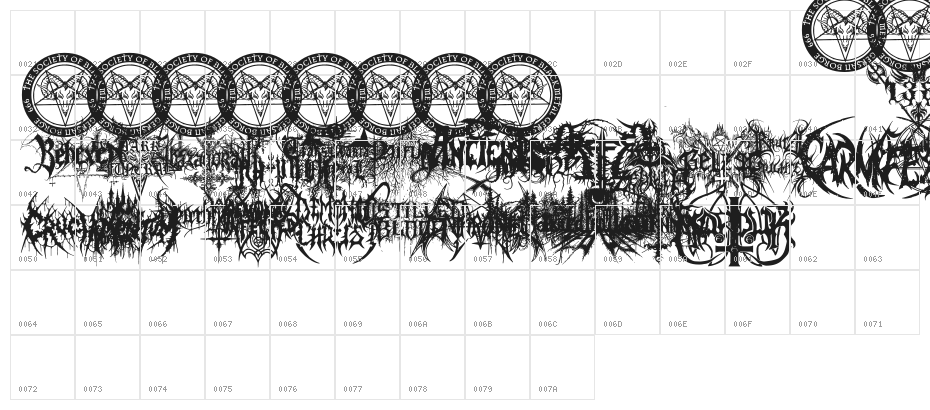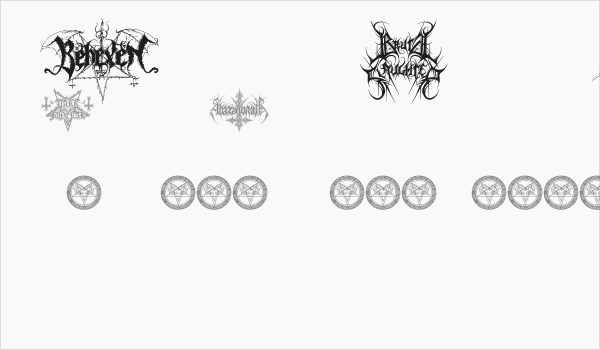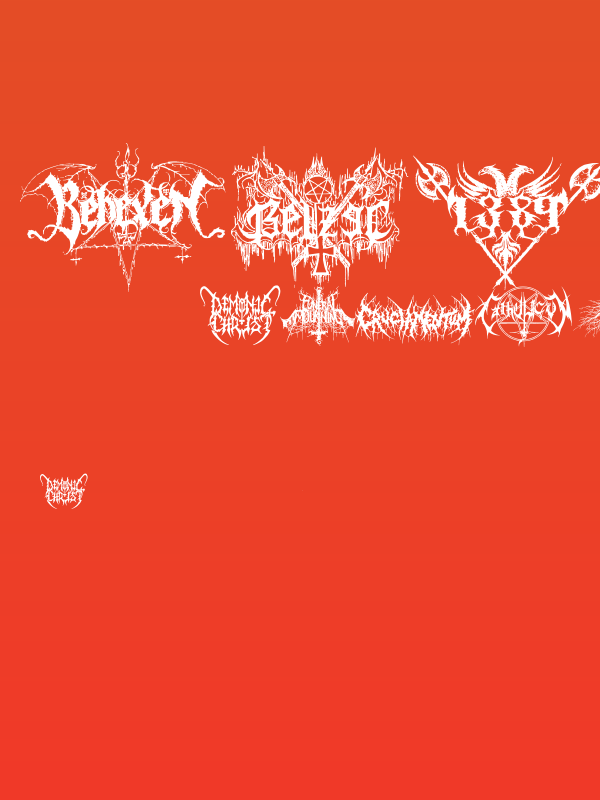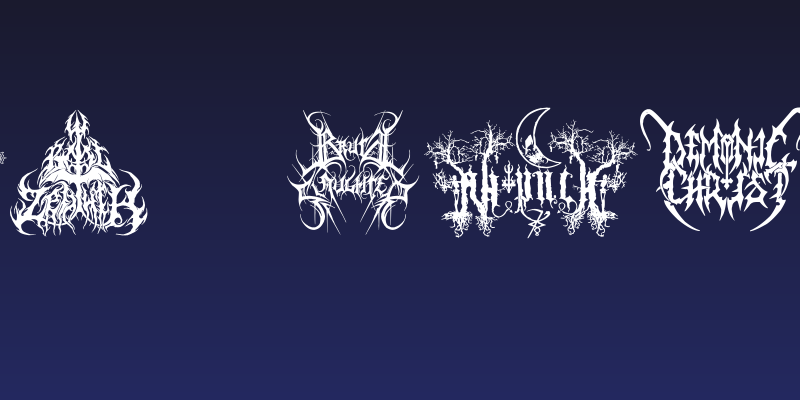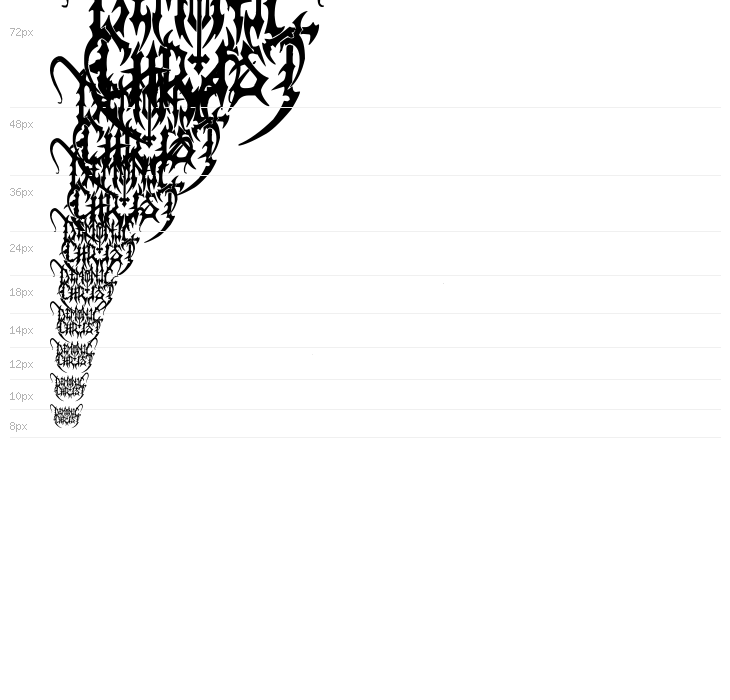
Black Metal G Font
Black Metal G Description
This font is characterized by its intricate and highly decorative style, reminiscent of black metal band logos. The letters are heavily stylized with sharp, jagged edges and complex interwoven lines, creating an aggressive and chaotic appearance. Each character seems to merge into the next, making it challenging to read at a glance, yet visually striking. The font embodies a dark, mysterious aesthetic, often associated with gothic or metal themes. It is not designed for readability but rather for its visual impact and thematic expression.
| Use Case | Logos, Posters |
| Proposed Projects | Ideal for band logos, album covers, posters, and any project requiring a dark, gothic, or metal theme. |